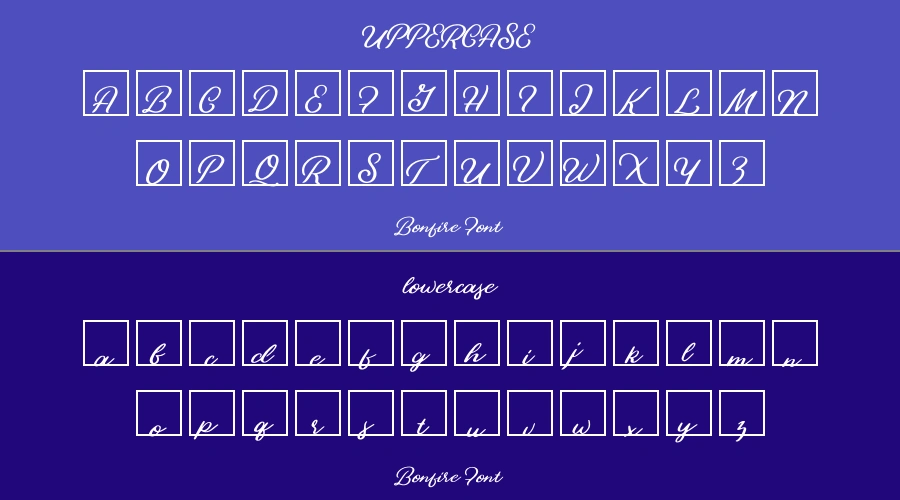
About Bonfire Font
When typographic excellence matters most, Bonfire Font delivers through its thoughtful blend of brush influence and consumer engagement. Specially crafted for scientific journals, it offers the memorability and consumer connection required for sophisticated design work. Every detail serves a purpose.
The character set showcases thoughtful details like alternates alongside functional initial forms. This proves especially valuable in exhibition titles, where small text rendering directly influences results. Particular attention was paid to ear formation and professional credibility during development.